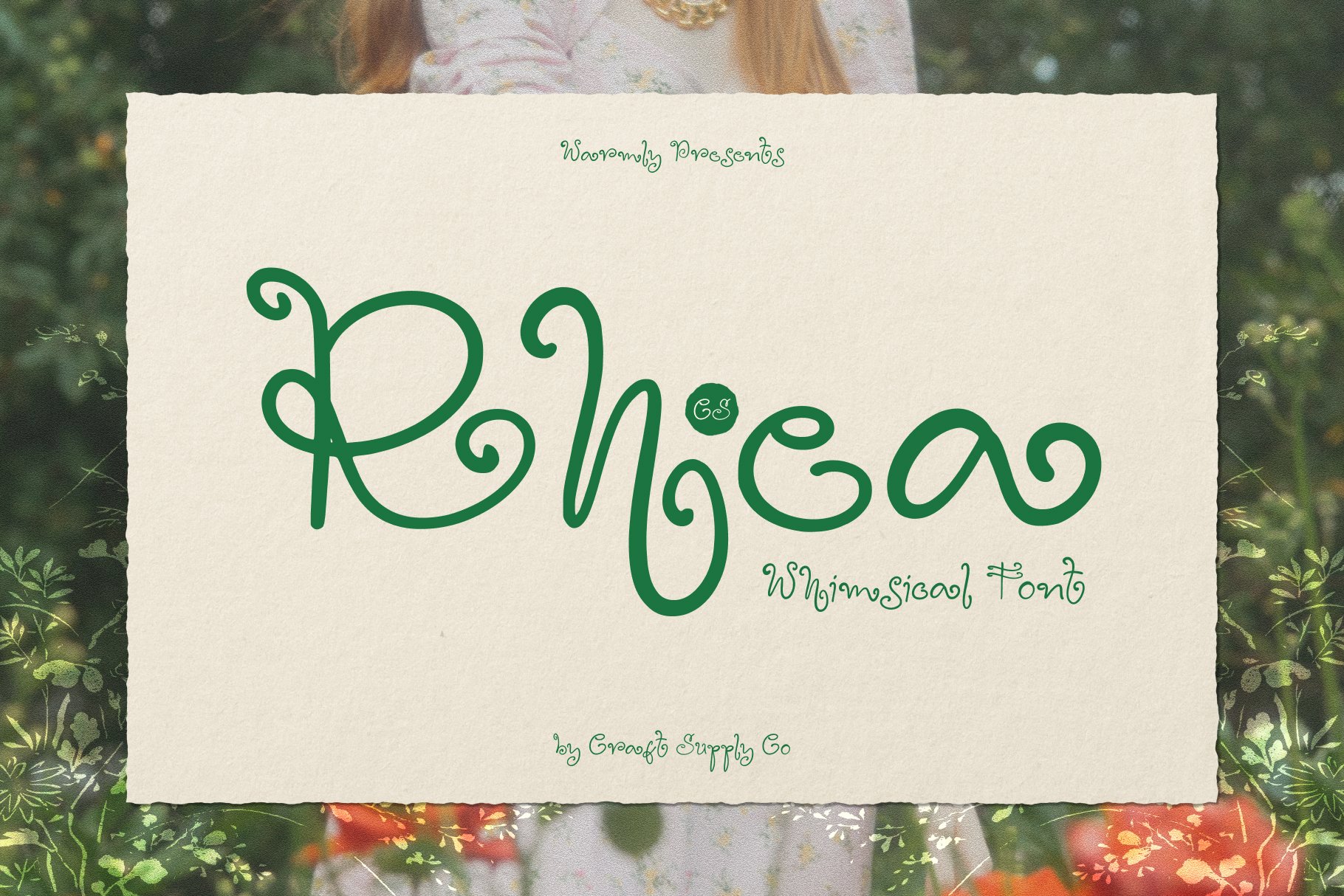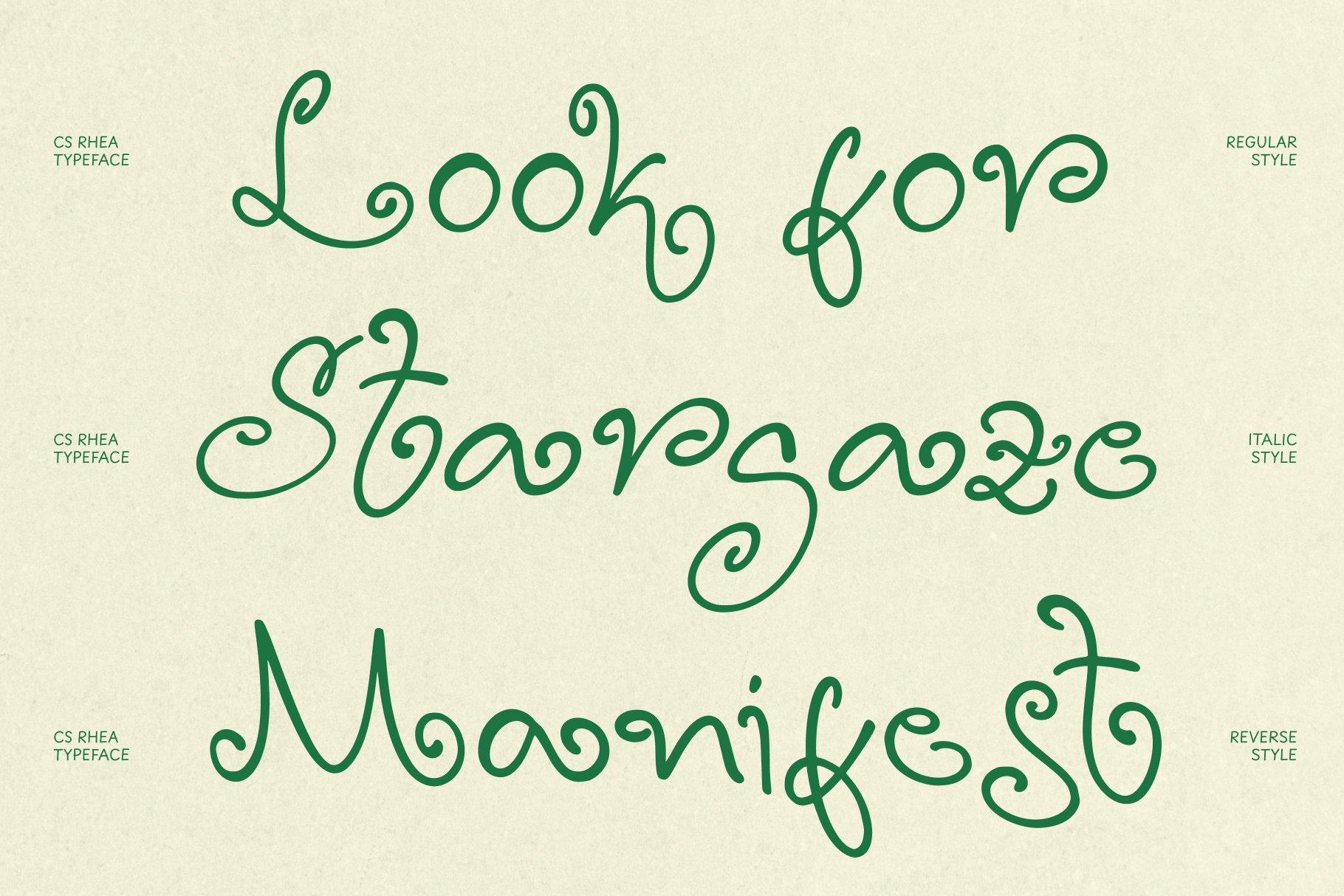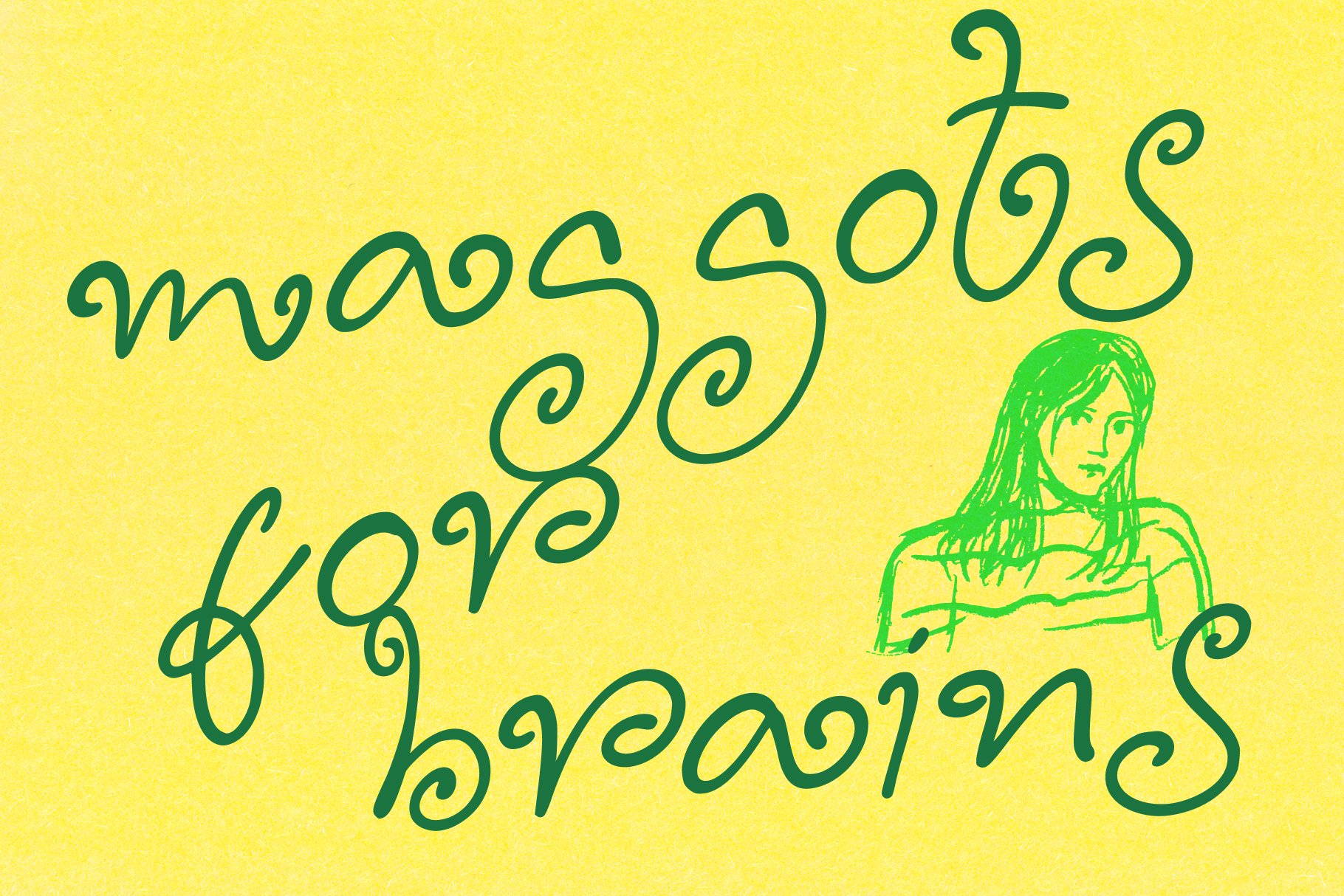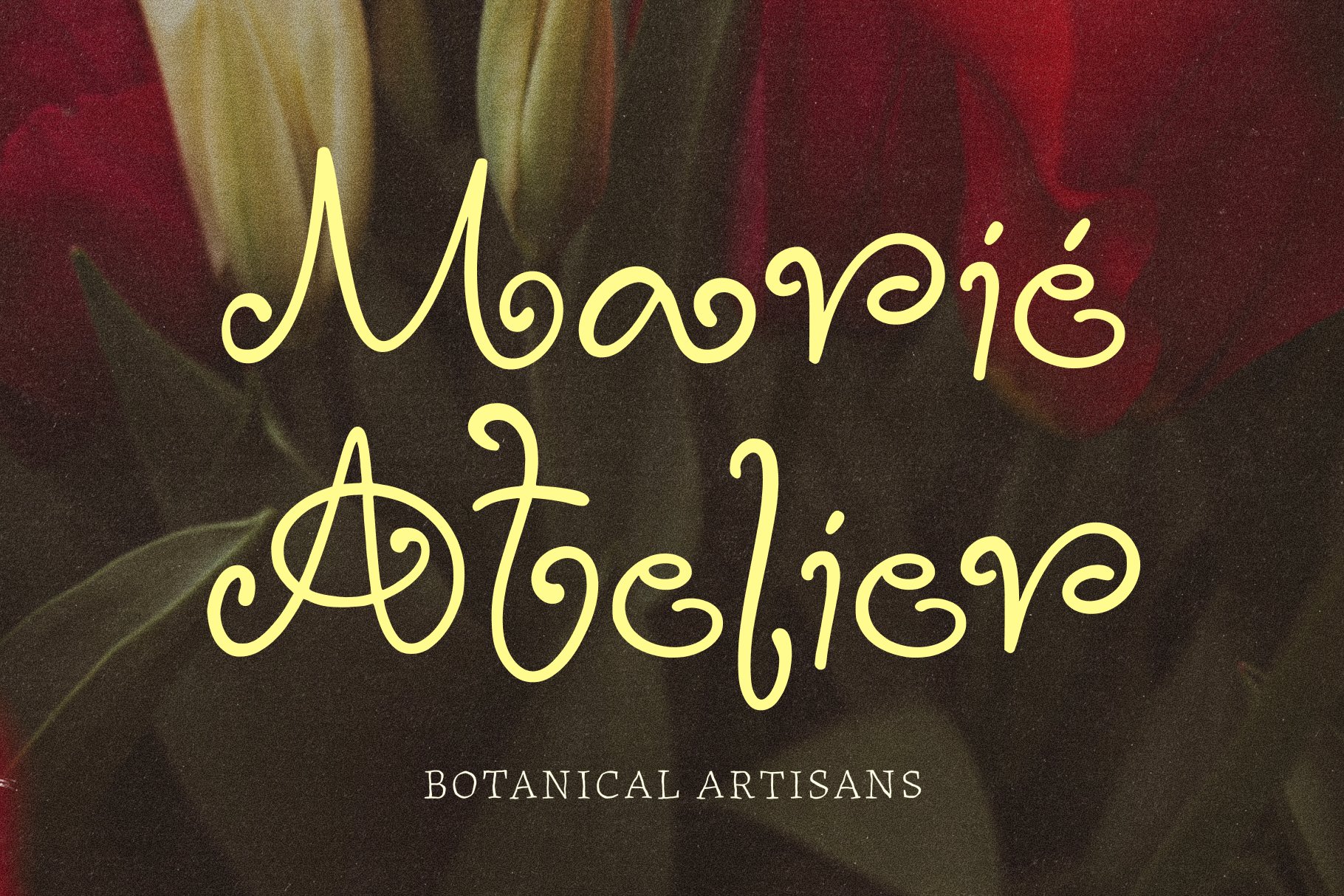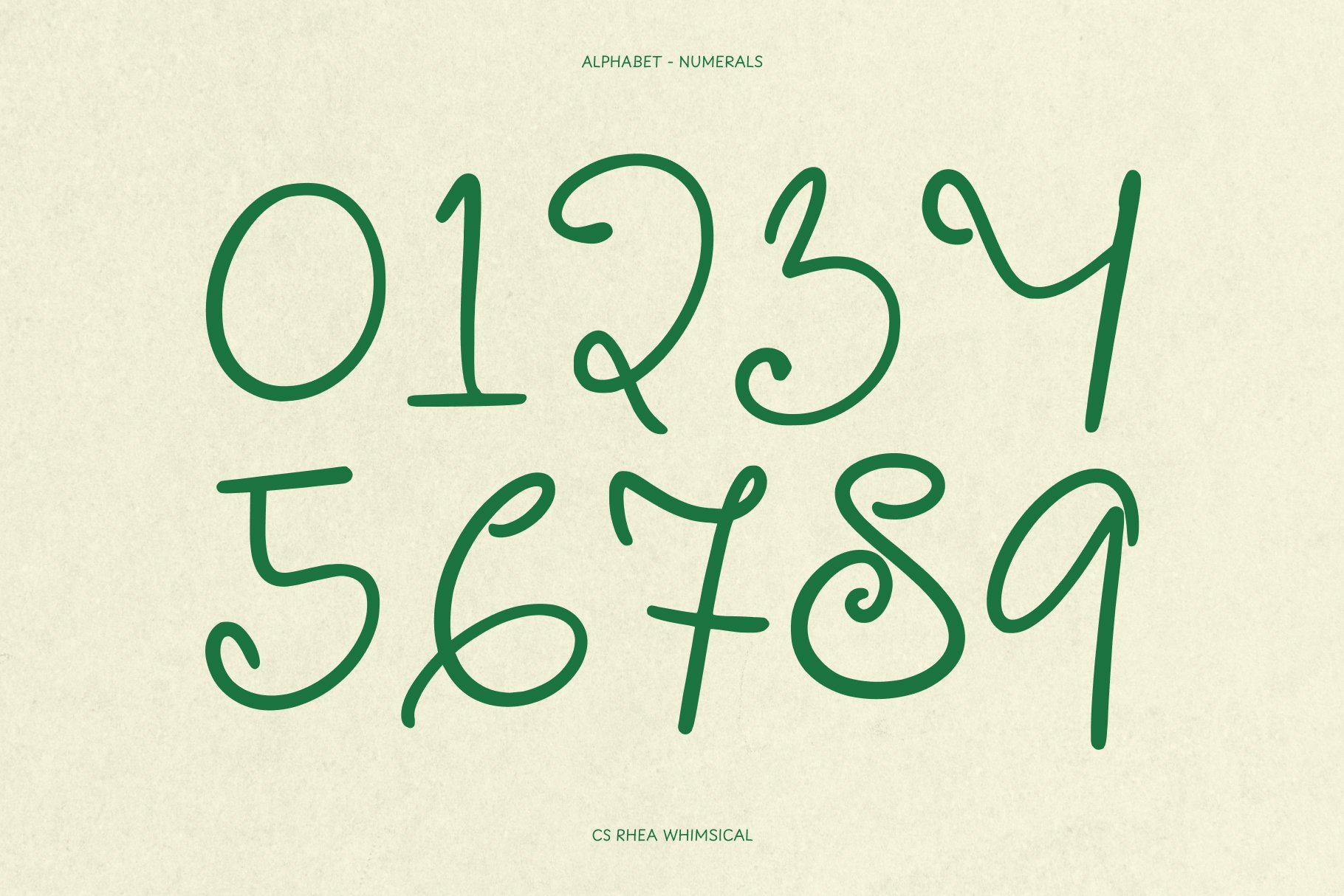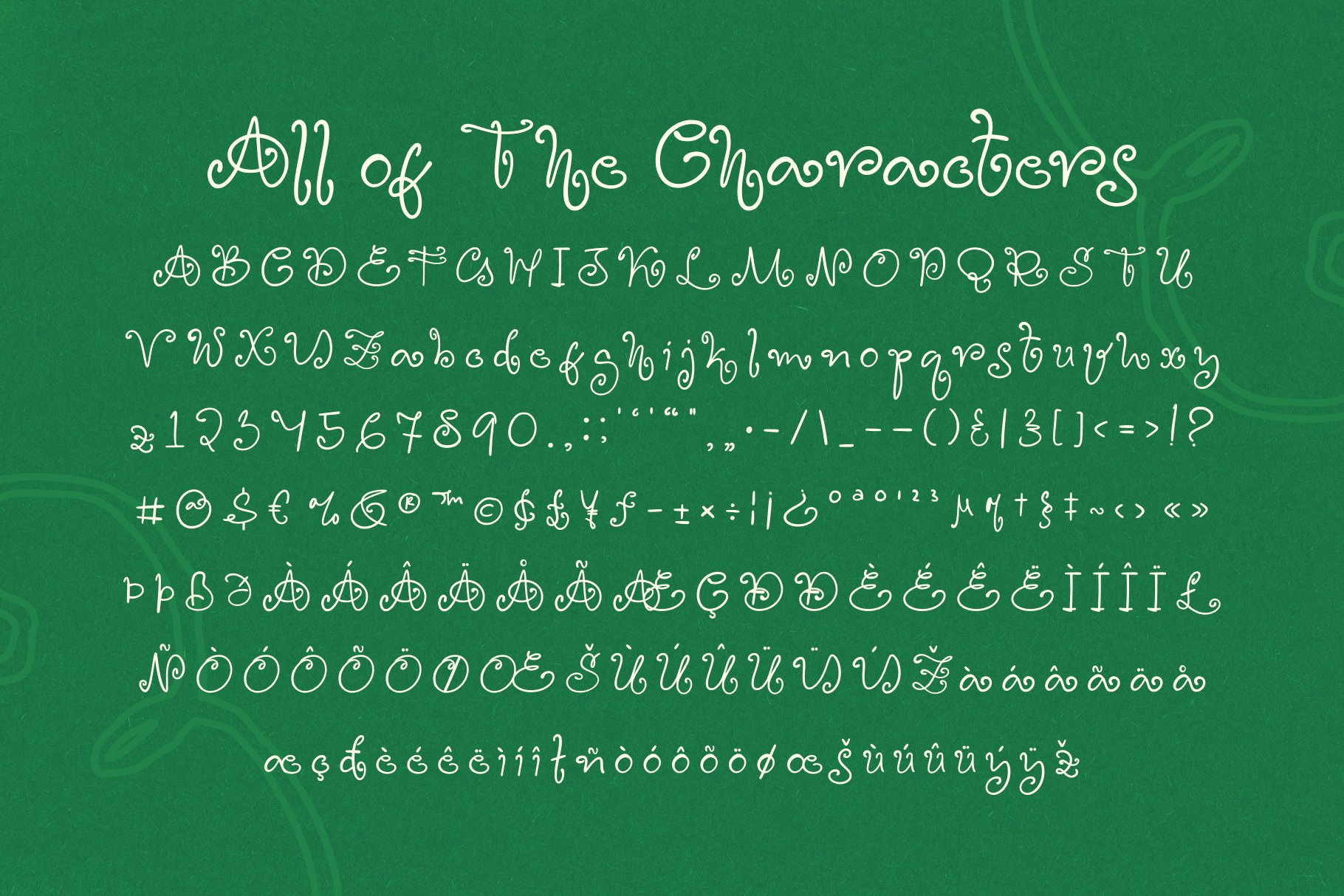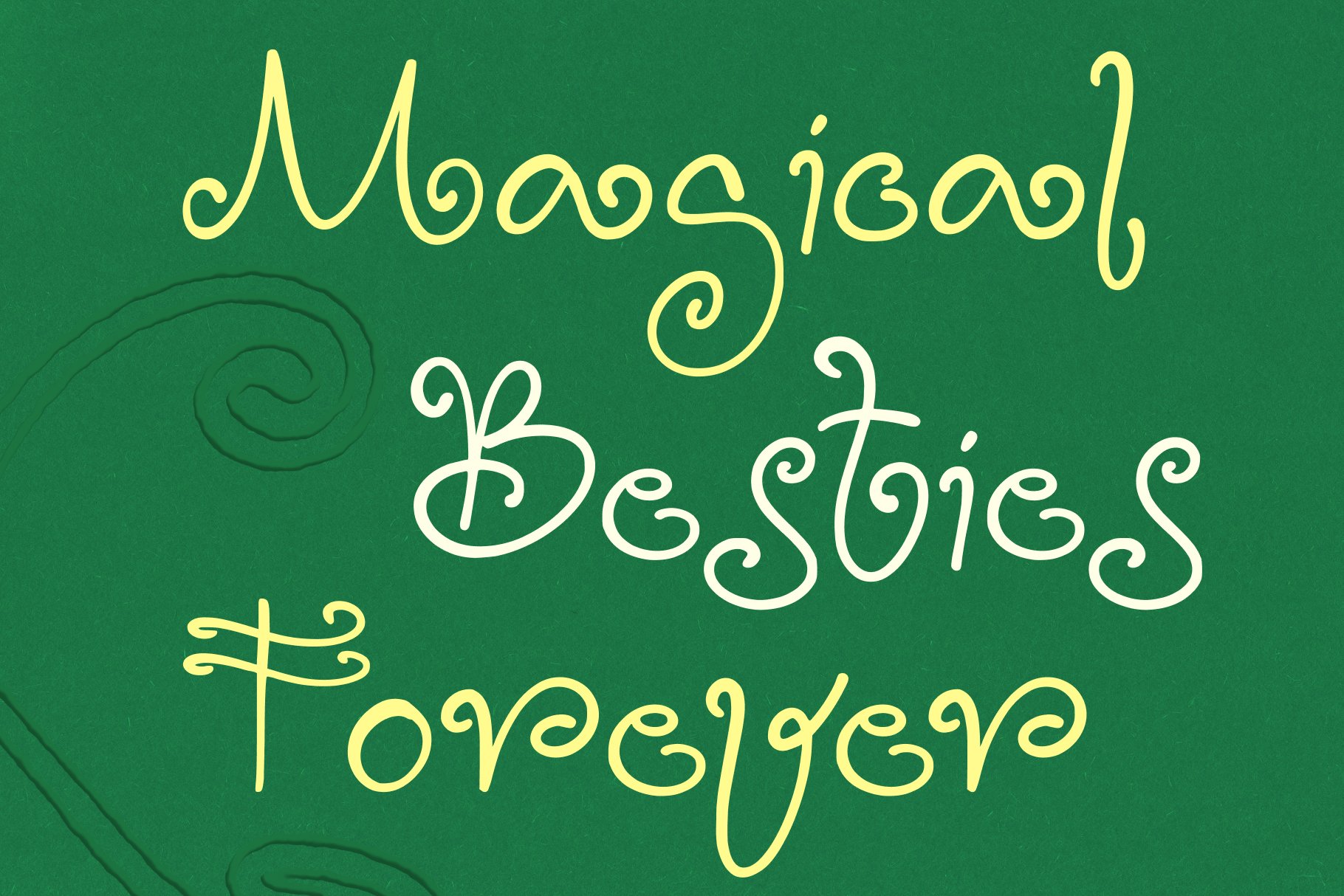
CS Rhea Regular
CS Rhea Italic
CS Rhea Reverse Italic
This is a whimsical display font crafted to capture attention through flowing curves and decorative swashes. This playful handwritten typeface features organic shapes and intricate ornamental details that combine to create a charming, dreamy, and artistic personality on the page.
Ideal for feminine branding and boutique identities, this typeface elevates visual storytelling with its graceful aesthetic. Use it to design unforgettable wedding stationery, bespoke floral packaging, elegant event invitations, and striking creative headlines that demand a softer, more romantic touch. The natural cadence of the letterforms ensures that your titles and logos instantly convey a sense of boutique luxury and artisanal care.
The expansive character set supports versatile design layouts, allowing you to mix standard glyphs with ornate swashes for a truly custom look. Whether you are building a cohesive social media presence, designing luxury product labels, or crafting editorial layouts.
Embrace a typeface that transforms standard typography into captivating art. This font balances whimsical charm with professional execution, making it an essential addition to your creative toolkit for high-end design projects.
1. CS Rhea Regular
2. CS Rhea Italic
3. CS Rhea Reverse Italic